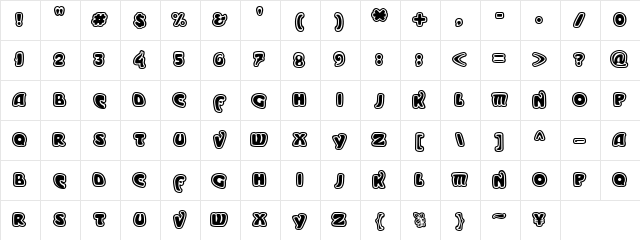
Moderno Outline Free Font
Moderno Outline
Style: Outline
Design Context for Moderno
Moderno is built around its visual character rather than neutral utility - its distinctive forms are designed to make an impression at display sizes.
Font Pairing: Pair with a clean neutral sans-serif for body copy to let Moderno's character lead without overwhelming the composition.
Pro Tip: Use Moderno exclusively at display sizes - it was designed to be seen, not read at length. Let a neutral companion handle body copy.